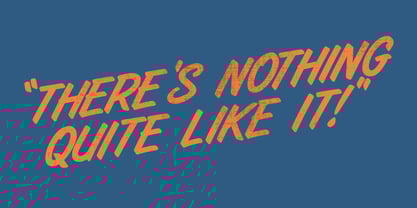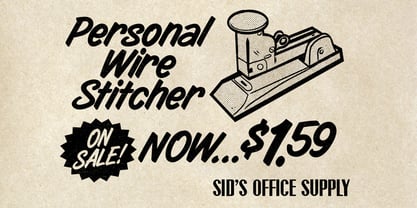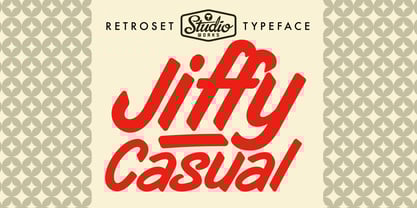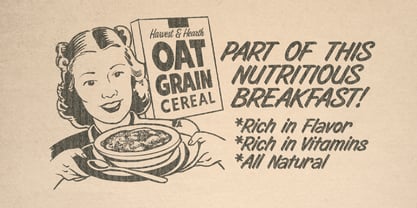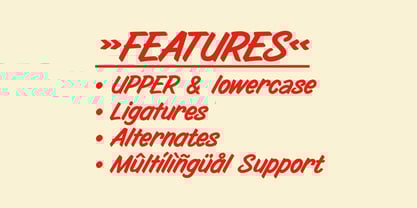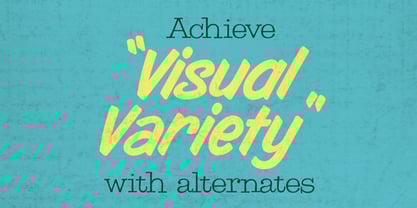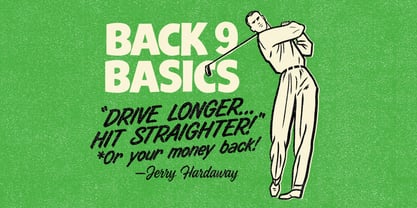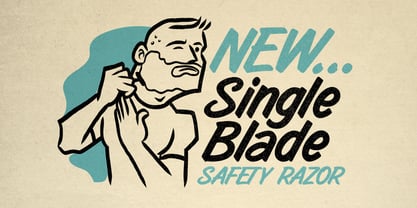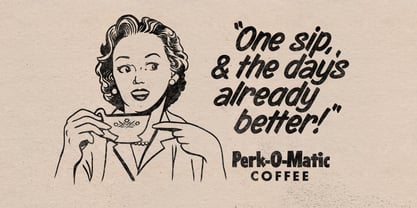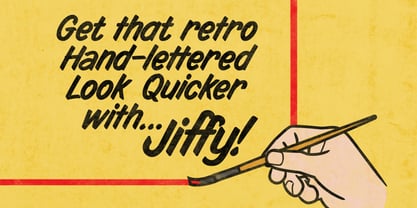
Jiffy Casual SW
by StudioWorks
The Jiffy Casual SW Font Family was designed by Sean Thorenson and published by StudioWorks. Jiffy Casual SW contains 1 styles. More about this family
Born from the lively brush scripts of storefront windows, diner menus, and magazine ads of the ’50s, Jiffy Casual delivers the same energy and style of lettering artists. Much like laying down bold, angled strokes with a sable brush, this typeface captures the spirit of midcentury living: optimistic, breezy, and a touch playful.
Jiffy Casual is perfect for projects that need a splash of retro spontaneity, a shot of style, and a whole lot of personality. Use for menus, ads, packaging, and anything that calls for a friendly hello. Bold enough to grab attention, warm enough to feel personal and stylish enough to keep up with today's trends. Add Jiffy Casual to your collection!